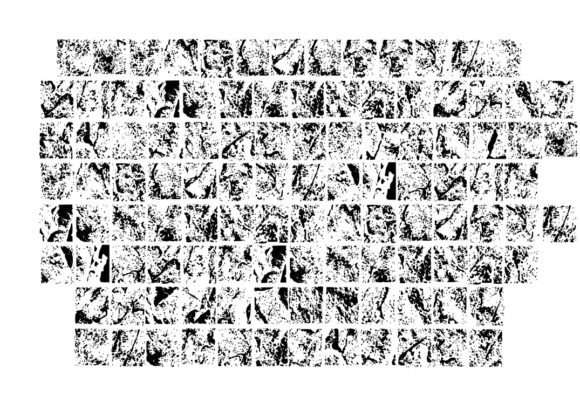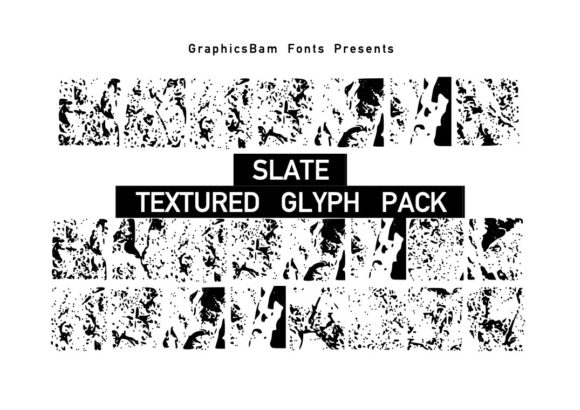
ABOUT SLATE TEXTURED GLYPHS FONT
“Slate Textured Glyphs” is an extensive collection of glyphs that showcases a variety of natural slate textures. This pack is specifically curated to bring a unique and organic touch to your design or craft projects, allowing you to incorporate the distinct and earthy appearance of slate into your creative endeavors.
With its diverse range of slate textures, “Slate Textured Glyphs” offers numerous options for adding a realistic and textured element to your work. Whether you’re working on graphic designs, illustrations, or any other visual medium, these glyphs can add a sense of depth, richness, and natural beauty to your designs.
The slate textures in “Slate Textured Glyphs” capture the unique patterns and colors found in natural slate, with its characteristic layers, cracks, and variations. They can be used to create an impactful visual element in projects related to nature themes, outdoor designs, rustic aesthetics, or any design that seeks to evoke a sense of earthiness and authenticity.
Unleash your creativity and explore the possibilities with “Slate Textured Glyphs.” Experiment with different slate textures, sizes, and orientations to achieve the desired look and convey a specific mood or concept. Whether you want to create a serene and organic composition or add a rugged and weathered detail, these glyphs offer versatility and flexibility in your design process.
Whether you’re designing logos, invitations, home decor, or any craft project that calls for a touch of natural texture, “Slate Textured Glyphs” is here to enhance your creative vision. Embrace the organic beauty and timeless elegance of slate as you create visually compelling and immersive designs.